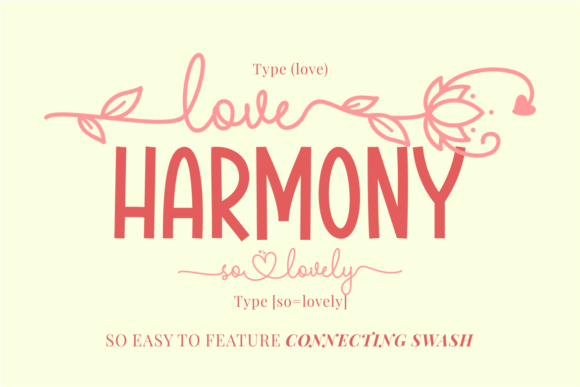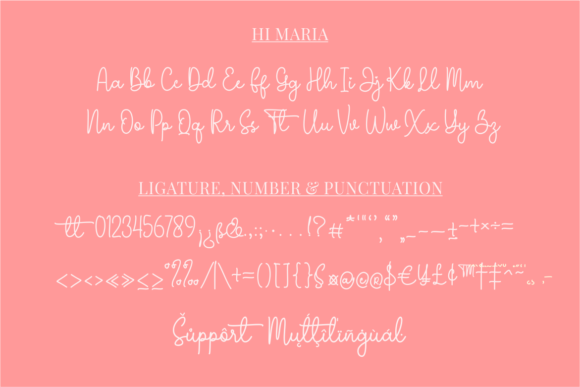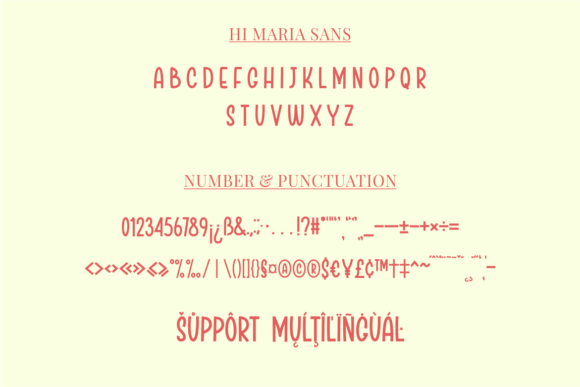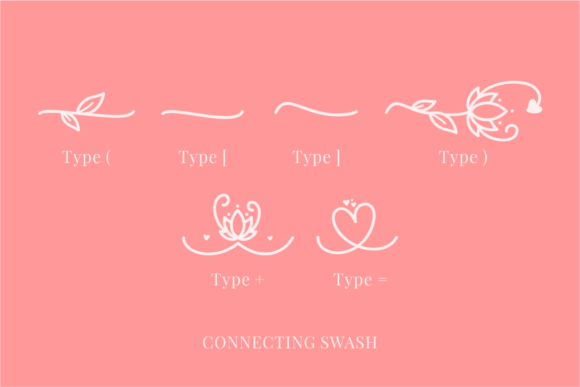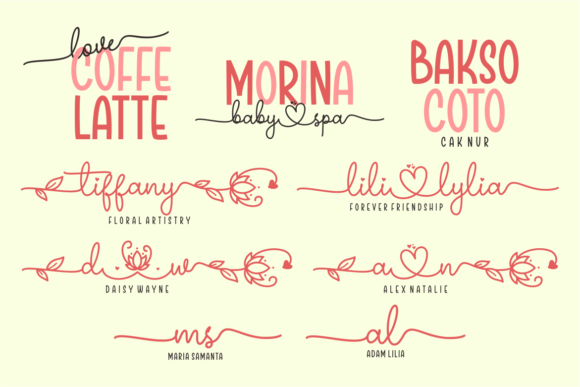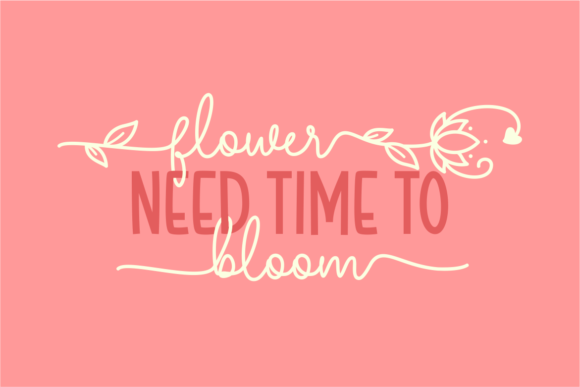
Introduction to Hi Maria Font
Have you ever stumbled upon a beautifully handwritten font that instantly elevates your design? For many of us, it’s a moment of pure creative bliss. Imagine you’re working on a heartfelt greeting card for a loved one, and you need a font that exudes warmth and personality. That’s exactly what Hi Maria Font is all about – a stylish and delicate handwritten duo font that adds a touch of romance to any design.
Key Features of Hi Maria Font
- High-quality, elegant script font designed for creative projects and personal use.
- Includes uppercase and lowercase letters, numbers, and punctuation marks for comprehensive use.
Honest Review: Hi Maria Font
I recently had the chance to work with Hi Maria Font, and I must say it’s been a game-changer for my creative projects. As a designer, I’m always on the lookout for high-quality design resources that can help me bring my ideas to life. Hi Maria Font delivers.
Overall, I’m really impressed with Hi Maria Font. It’s a high-quality design resource that’s perfect for designers of all levels. While it may have some limitations, the benefits far outweigh the drawbacks. I highly recommend giving it a try for your next creative project.
Hi Maria Font
Hi Maria Font is a high-quality design resource ideal for creative projects requiring a touch of elegance and sophistication. With its transparent background, this versatile font can be easily integrated into various design platforms.
Hi Maria Font is suitable for a wide range of creative projects, including: wedding invitations, business cards, menus, and marketing materials. Its elegant design and transparent background make it an excellent choice for any project requiring a touch of sophistication.